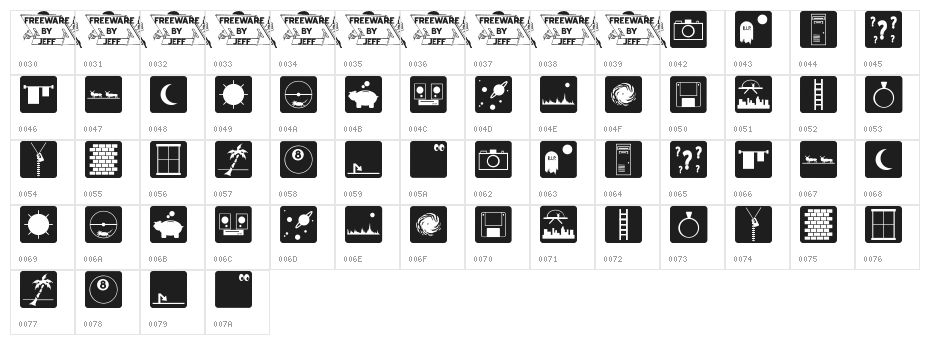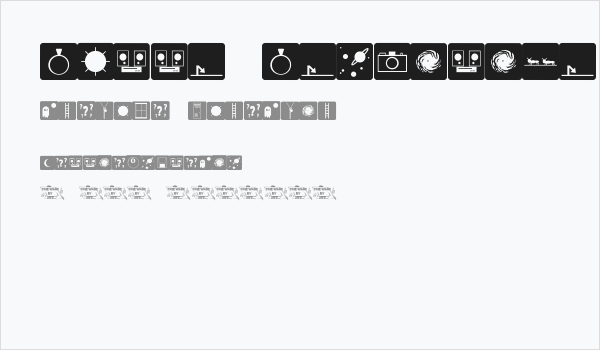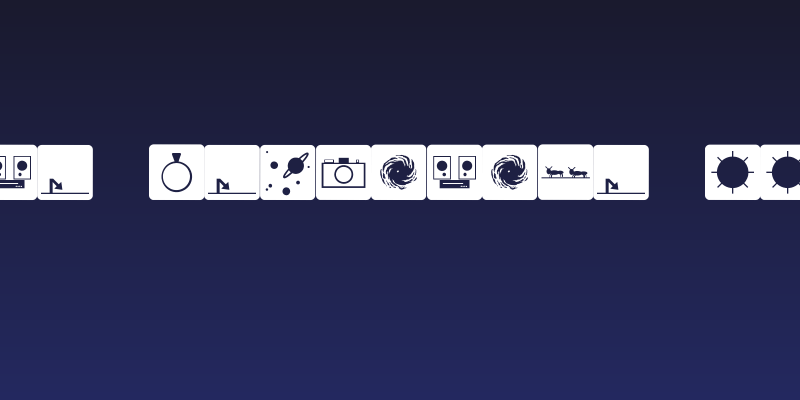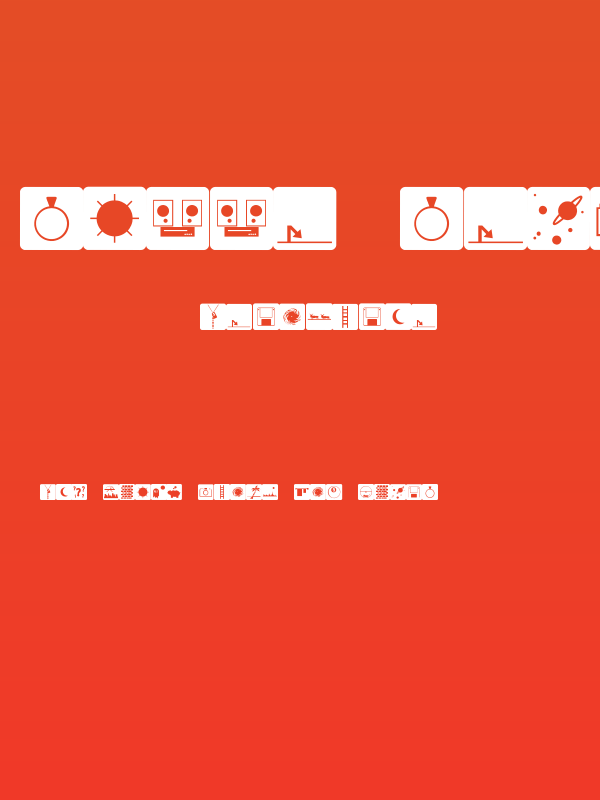
Silly Symbology II JL Font
Silly Symbology II JL Description
This collection features a diverse array of playful and whimsical symbols, each enclosed within a square frame. The icons range from everyday objects like cameras and floppy disks to more abstract or thematic symbols such as a ladder, a zipper, and a palm tree. The style is bold and graphic, with high contrast between the black backgrounds and white illustrations, making each symbol stand out distinctly. The designs are simple yet effective, with clean lines and minimal detail, allowing for easy recognition and versatility in use. This set is ideal for creative projects that require a touch of humor or a unique visual element.
| Overall Style | Whimsical |
| Use Case | Decorative elements, Graphic design, Educational materials |
| Proposed Projects | Ideal for use in graphic design projects, educational materials, or as decorative elements in digital media. |